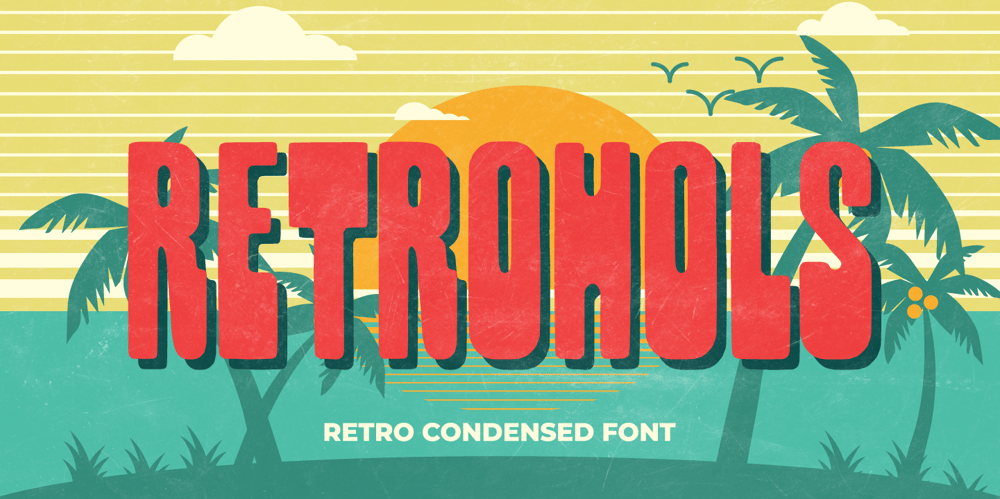
Retrohols
Retrohols font
Retrohols Font Family was designed by Abdul Malik Wisnu and published by Almarkha Type. Retrohols contains 1 styles and family package options. Retrohols feels playfully nostalgic and delivers an incredible vintage aesthetic. Use this display font to add that special retro touch to any design idea you can think of!